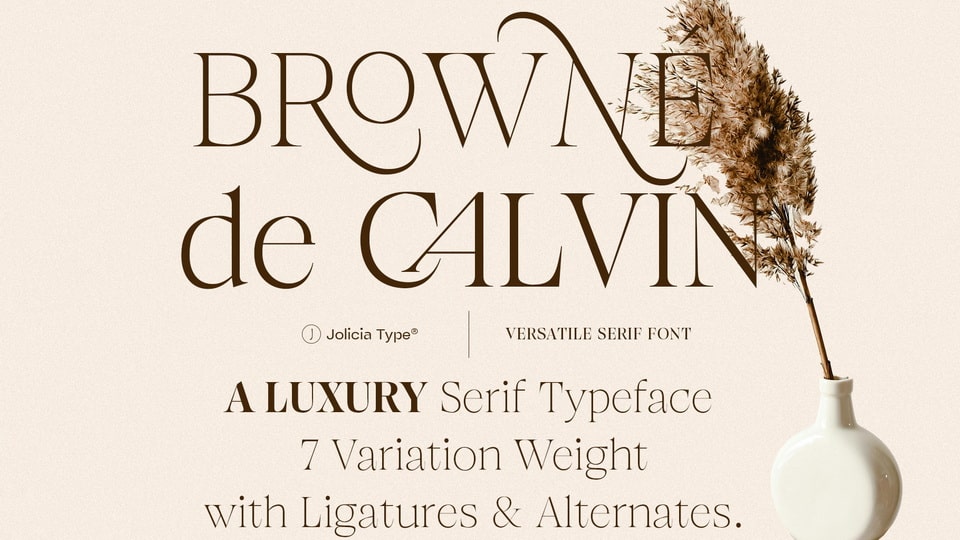
Download Browne de Calvin font, a timeless serif typeface crafted with exquisite elegance and sophisticated precision designed to embody the spirit of luxury.